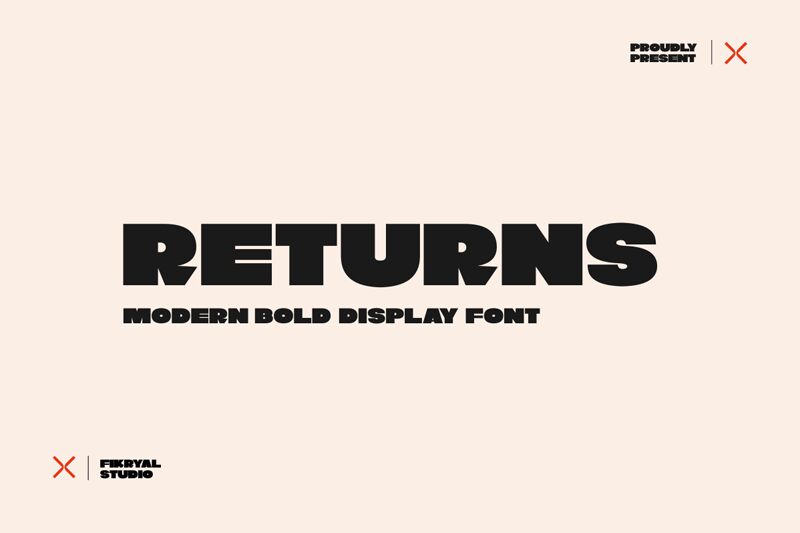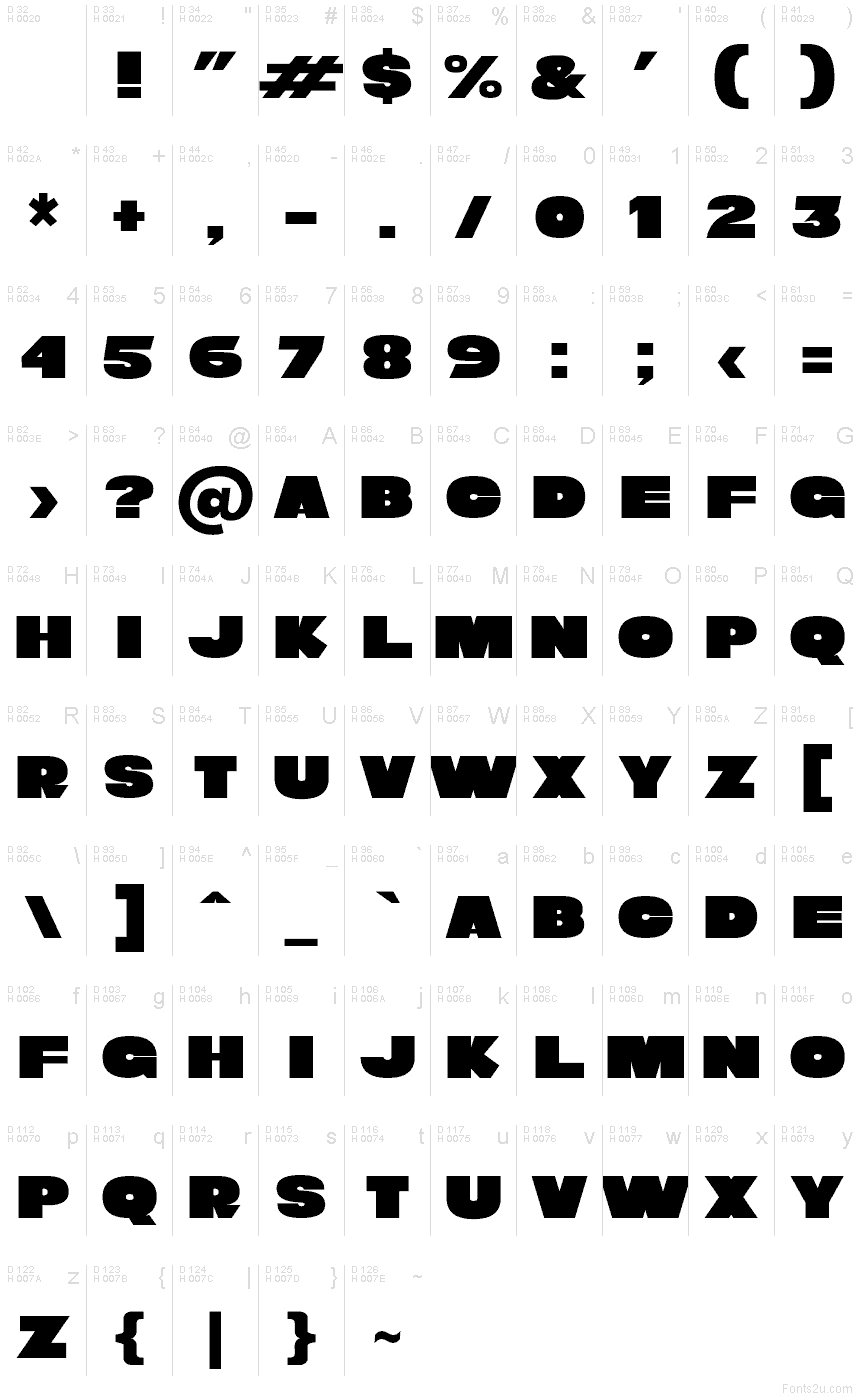
Returns
Returns font by Fikryal studio is a free sans serif font that hits like a padded hammer-massive, rounded, and tightly composed. Its defining move is that plush, compressed weight: chunky shapes with soft edges that read bold and friendly rather than harsh. The rhythm is steady and compact, so you get billboard-level impact without visual clutter.
Using Returns, headlines lock up fast and loud for posters, sports branding, game titles, packaging, merch, and social promos. This free font shines at big sizes; add a touch of tracking when it gets smaller. For balance, pair it with a lean geometric sans for subheads or captions, letting Returns carry the punch while the companion keeps things clear.